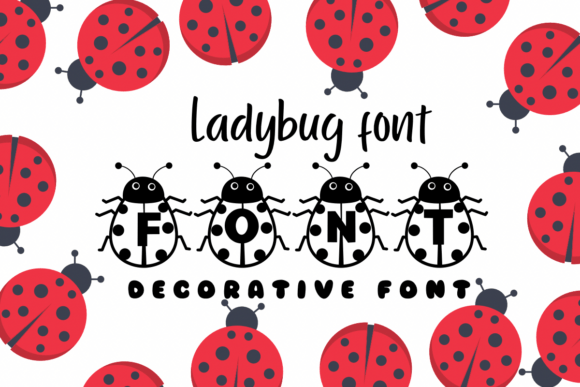
Ladybug Font: A Playful Decorative Typeface for Creative Projects
In the world of typography, fonts play a crucial role in conveying the tone and personality of a brand, product, or message. With the vast array of fonts available, it can be challenging to find one that stands out from the crowd while still being easy to read. This is where Ladybug Font comes in – a playful decorative typeface that merges design and charm into every letter.
What is Ladybug Font?
Ladybug Font is a unique and eye-catching typeface that is crafted within the shape of a cheerful ladybug. Each uppercase character is designed to bring the ladybug theme to life, making it instantly recognizable and perfect for a variety of creative projects. The font balances fun with clarity, ensuring that your text remains easy to read while carrying a distinctive personality.
Key Features of Ladybug Font
- Playful Design: Each uppercase character is crafted within the shape of a cheerful ladybug, making it perfect for branding, children’s books, educational materials, or seasonal designs.
- Balanced Clarity: The font balances fun with clarity, ensuring that your text remains easy to read while carrying a distinctive personality.
- Uppercase and Lowercase: Uppercase letters bring the ladybug theme to life, while the lowercase set offers clean, versatile outlines for balance.
- Ideal for Digital Creatives: Ladybug Font is perfect for digital creatives, crafters, and marketers looking for a fresh way to capture attention and add uniqueness to their projects.
Ideas for Using Ladybug Font
Ladybug Font is a versatile typeface that can be used in a variety of creative projects. Here are some ideas to get you started:
- Branding: Use Ladybug Font to create a unique and memorable brand identity that stands out from the crowd.
- Children’s Books: The playful design of Ladybug Font makes it perfect for children’s books, adding a touch of whimsy and fun to your story.
- Educational Materials: Ladybug Font can be used to create engaging and interactive educational materials, such as worksheets, activity sheets, and more.
- Seasonal Designs: The ladybug theme makes this font perfect for seasonal designs, such as spring and summer-themed projects.
- Digital Marketing: Use Ladybug Font to create eye-catching social media graphics, email headers, and other digital marketing materials.
Benefits of Using Ladybug Font
Ladybug Font offers a range of benefits for creative professionals and businesses. Here are some of the advantages of using this unique typeface:
- Unique Design: Ladybug Font offers a fresh and unique design that can help you stand out from the crowd.
- Easy to Read: Despite its playful design, Ladybug Font is easy to read, making it perfect for body text and other applications where clarity is important.
- Versatile: Ladybug Font can be used in a variety of creative projects, from branding and advertising to children’s books and educational materials.
- Attention-Grabbing: The playful design of Ladybug Font is sure to grab attention and add a touch of personality to your project.
Tips for Using Ladybug Font
Here are some tips for getting the most out of Ladybug Font:
- Use it Sparingly: While Ladybug Font is perfect for headlines and titles, it may not be suitable for body text. Use it sparingly to add a touch of personality to your project.
- Pair it with Other Fonts: Ladybug Font can be paired with other fonts to create a unique and visually appealing design.
- Experiment with Colors: The ladybug theme lends itself perfectly to bright and bold colors. Experiment with different color schemes to add a touch of whimsy to your project.
Ladybug Font is a playful decorative typeface that merges design and charm into every letter. With its unique design, balanced clarity, and versatility, it’s perfect for a variety of creative projects, from branding and advertising to children’s books and educational materials. Whether you’re a digital creative, crafter, or marketer, Ladybug Font provides a fresh way to capture attention and add uniqueness to your projects. So why not give it a try and see how it can elevate your typography into a visual story that connects instantly with audiences?